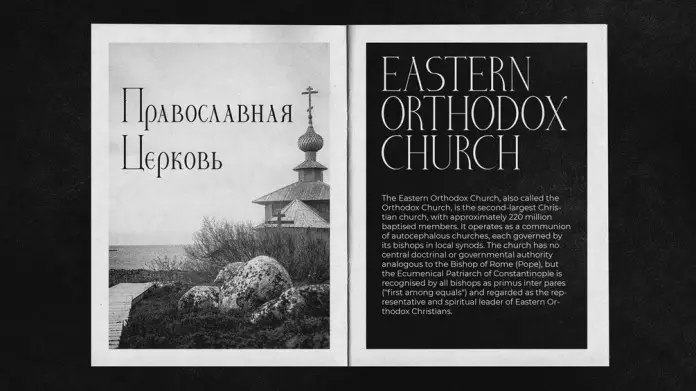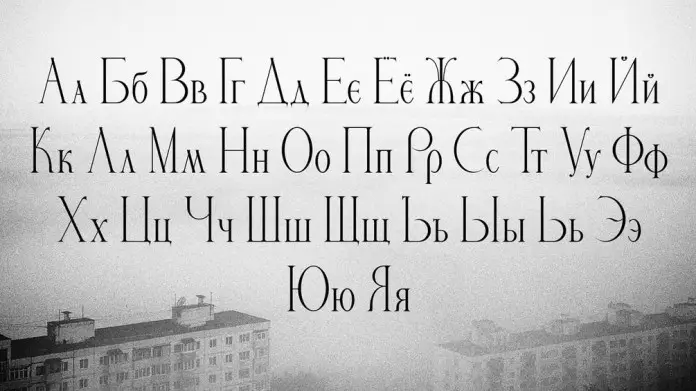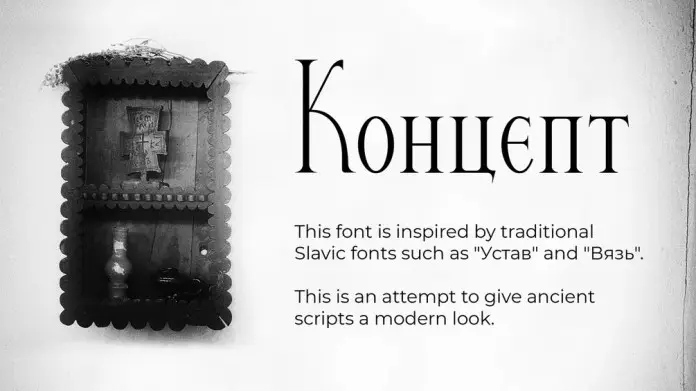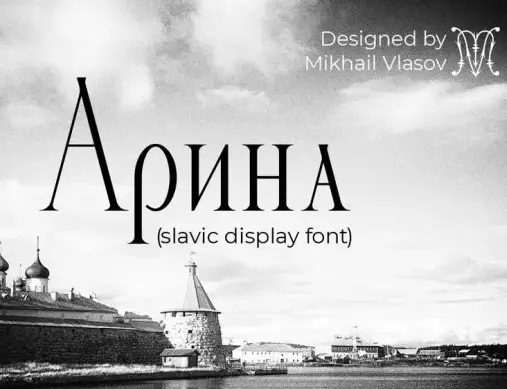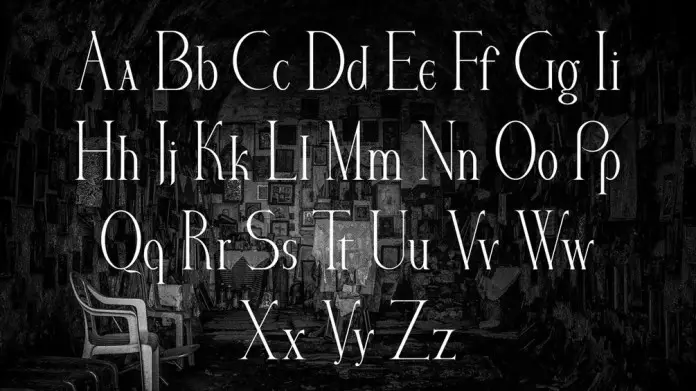
Arina Serif Font
The Arina Serif Font is a beautifully crafted typeface that combines elegance with readability. Perfect for both digital and print applications, this font features a classic serif design that enhances any project.
• Multiple weights for versatile use
• Stylish uppercase and lowercase letters
• Numerous ligatures and special characters
This font is ideal for branding, logo creation, web design, and print materials like brochures and business cards. Its sophisticated look makes it suitable for both formal and casual projects.